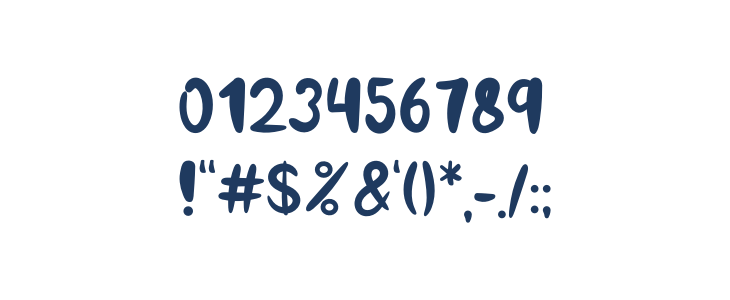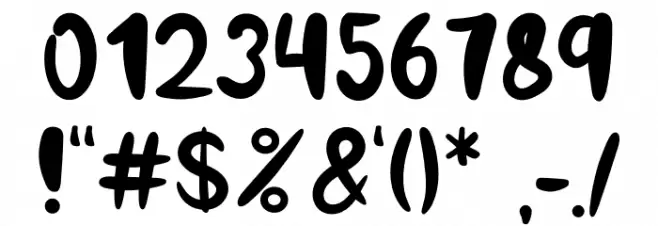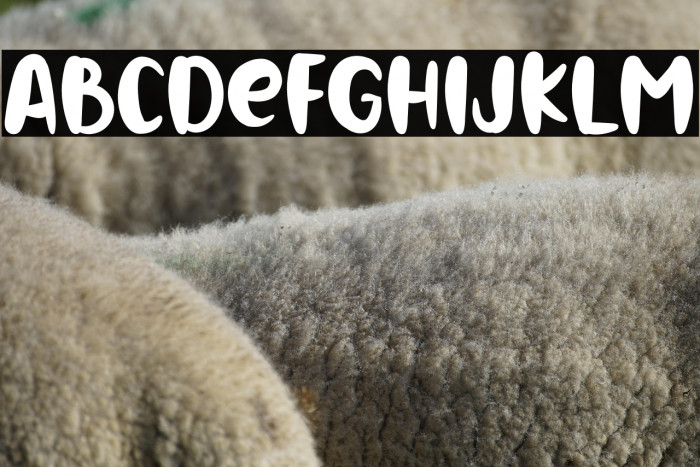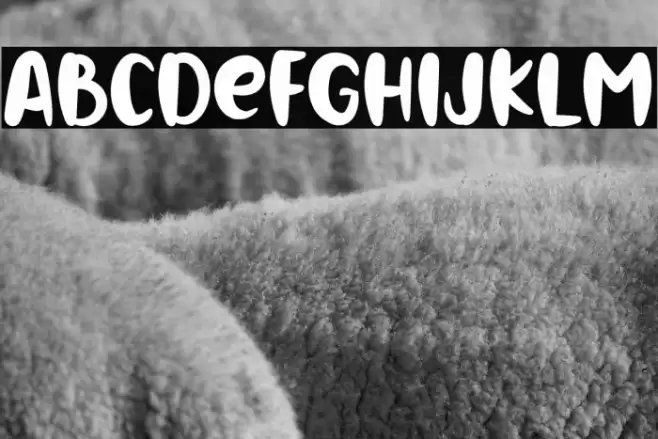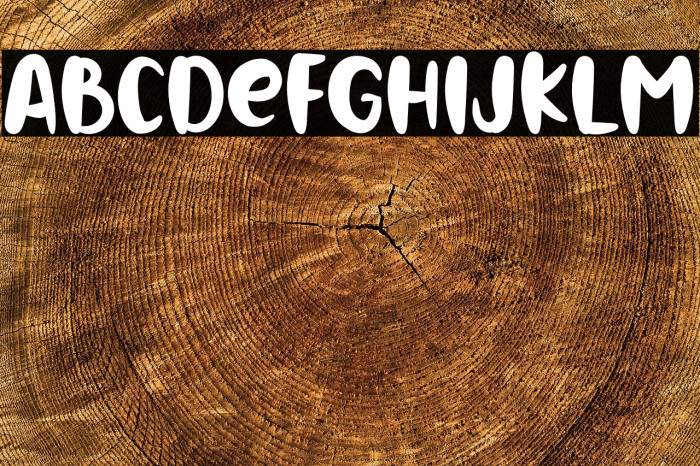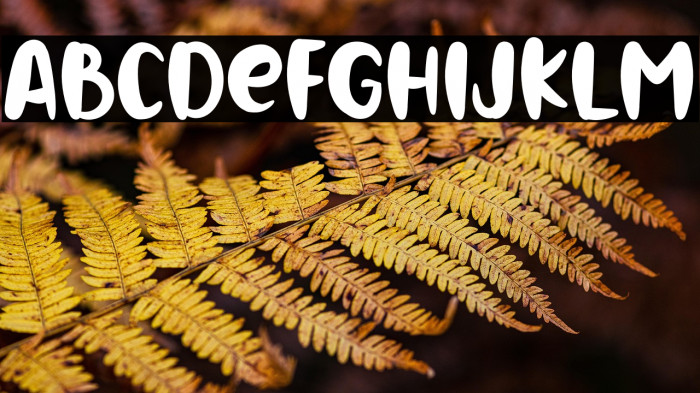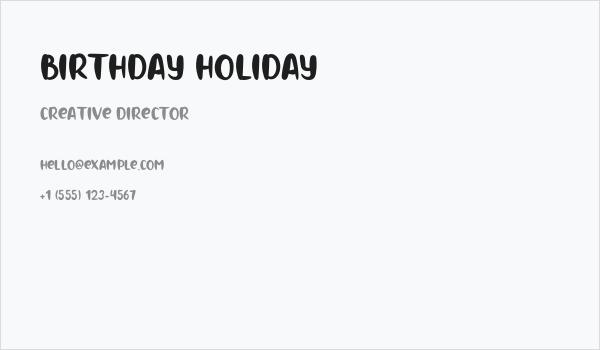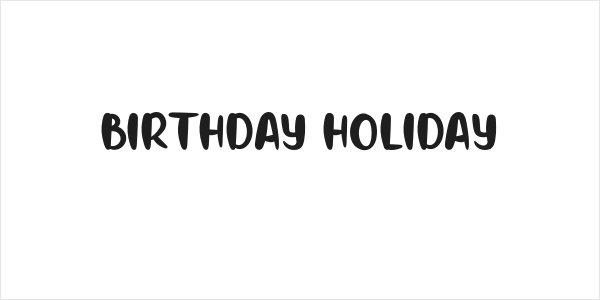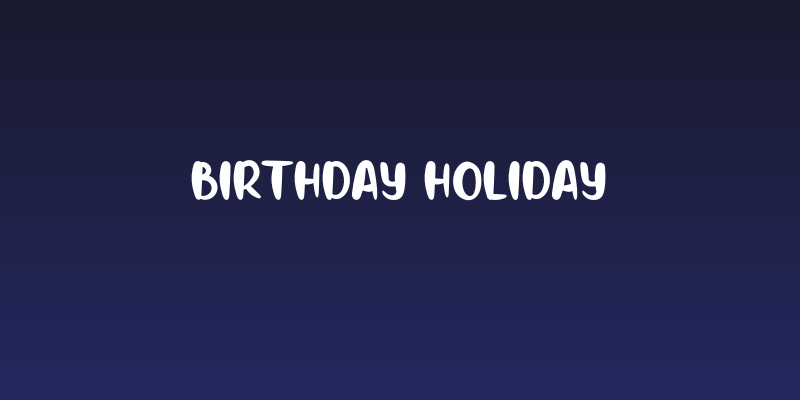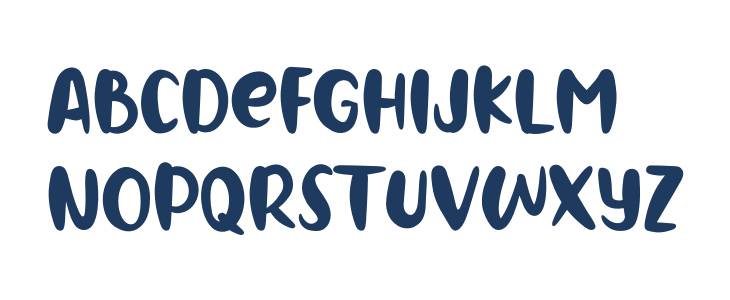
BIRTHDAY HOLIDAY Font
BIRTHDAY HOLIDAY Description
This font exudes a playful and energetic vibe, characterized by its bold and rounded letterforms. The strokes are thick and consistent, giving it a strong presence on the page. Each character has a slightly irregular shape, adding a touch of whimsy and charm. The font maintains a uniform weight throughout, ensuring readability while still conveying a sense of fun. Its informal style makes it perfect for casual and creative projects, where a lively and approachable look is desired. The numerals and special characters are designed to match the playful aesthetic, making it versatile for various design needs.
| Proposed Projects | Ideal for greeting cards, children's books, party invitations, and playful branding. |